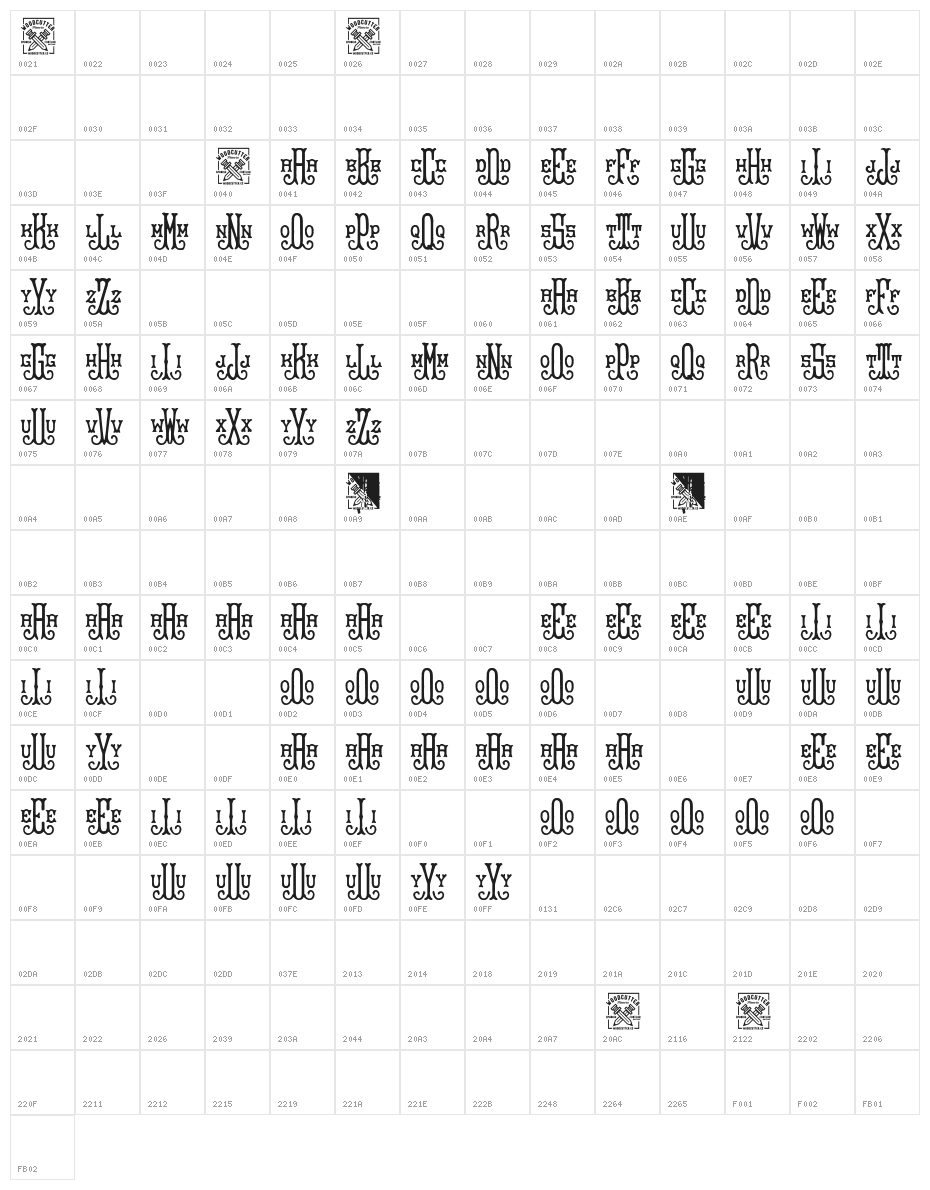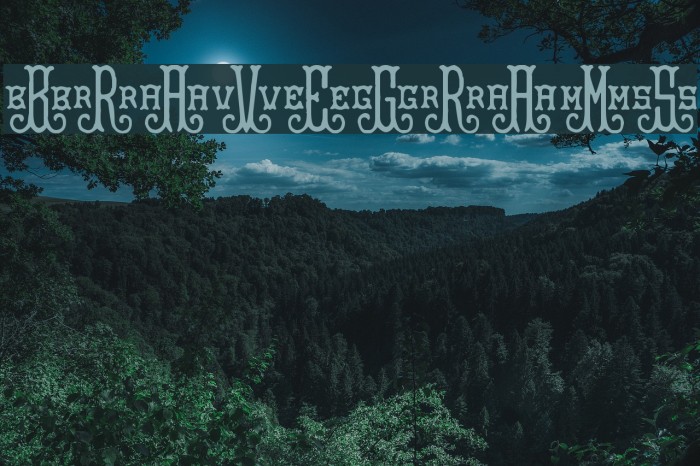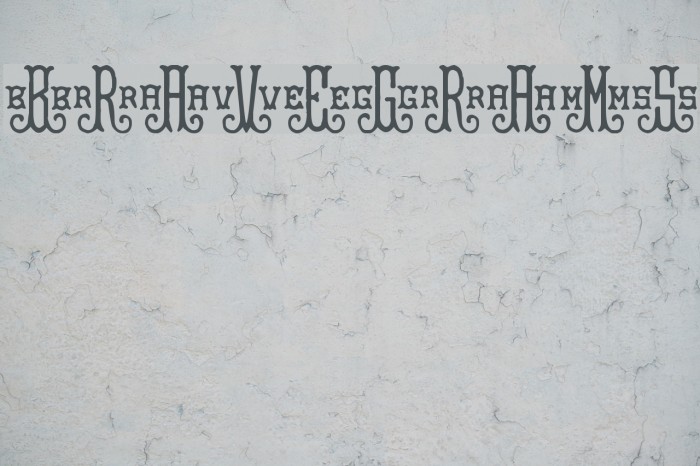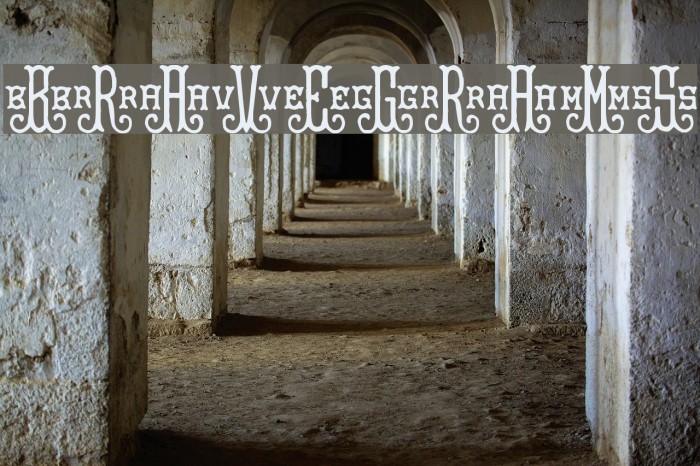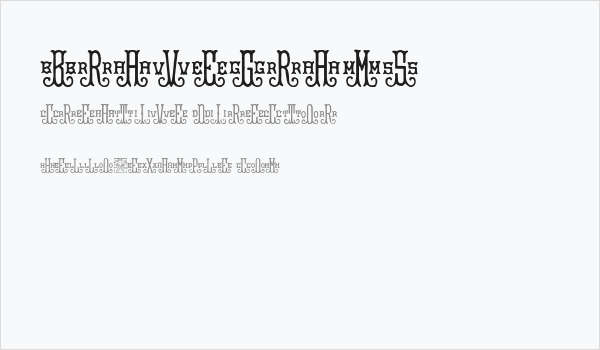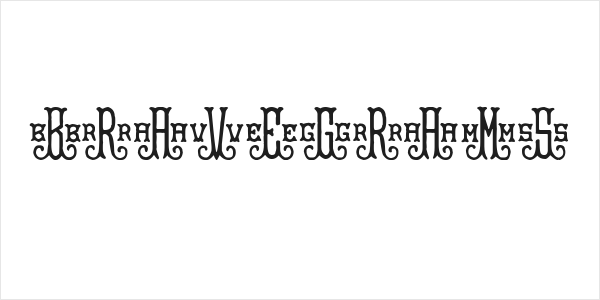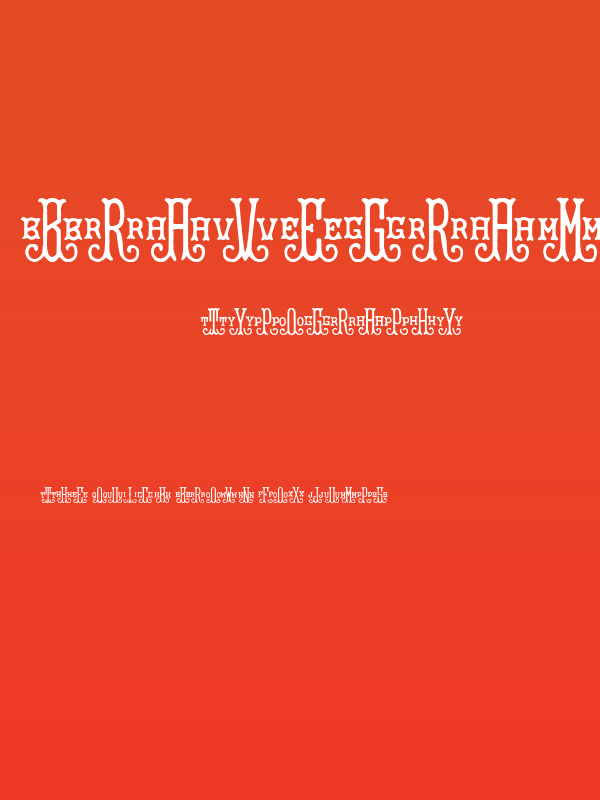
BraveGrams Font
BraveGrams Description
This font features an ornate and decorative style with intricate swirls and flourishes extending from the characters. The letters have a bold presence, characterized by thick strokes and elaborate serifs that give it a vintage and theatrical appearance. The uppercase and lowercase letters maintain a consistent design, with each character adorned with unique embellishments that add to its decorative appeal. The numbers and special characters follow the same ornate style, ensuring a cohesive look across all glyphs. This font is ideal for projects that require a touch of elegance and drama, such as invitations, posters, or branding materials that aim to capture attention with a classic yet artistic flair.
| Use Case | Headlines, Logos, Decorative text |
| Proposed Projects | Ideal for wedding invitations, theatrical posters, vintage branding, and decorative signage. |